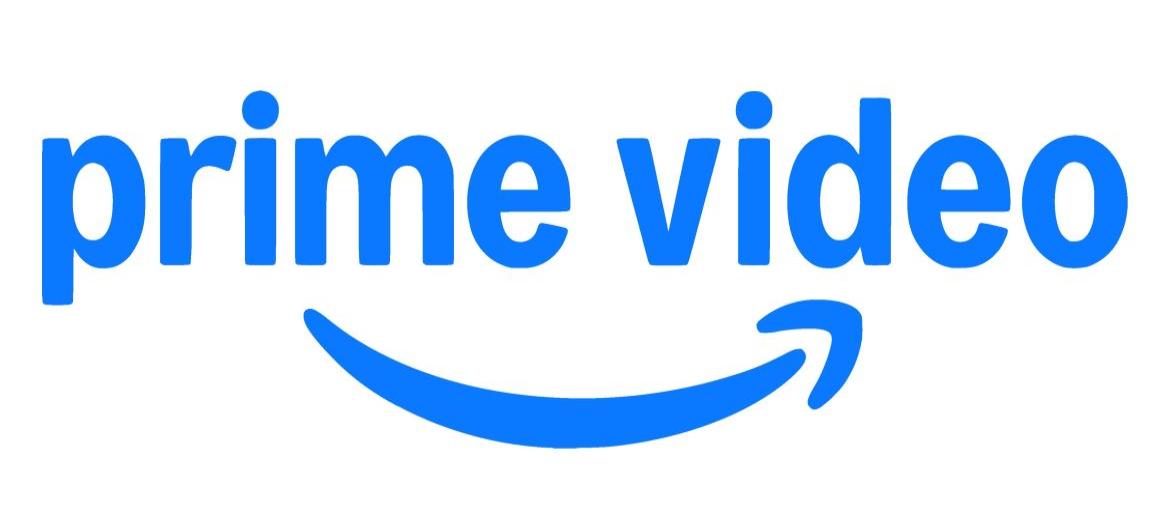
Prime Video Font
What Font is Prime Video?
Prime Video Font uses Amazon Ember Display, a modern sans-serif typeface designed as the primary brand font for all Amazon products and services. Amazon Ember features balanced geometry, clean strokes, and a highly readable structure, making it ideal for digital screens, UI elements, and streaming platform branding. While the typeface is a commercial family with licensing restrictions, designers can look for similar free alternatives when replicating Prime Video-style typography for personal or conceptual projects.
About Prime Video
Launched in 2006, Prime Video is Amazon’s streaming platform offering movies, series, original productions, live sports, and licensed content from global studios. The service hosts acclaimed titles across genres including drama, action, comedy, sci-fi, and documentary. With major exclusives and award-winning originals, Prime Video has become a key player in the digital entertainment industry, providing on-demand streaming to millions of subscribers worldwide.